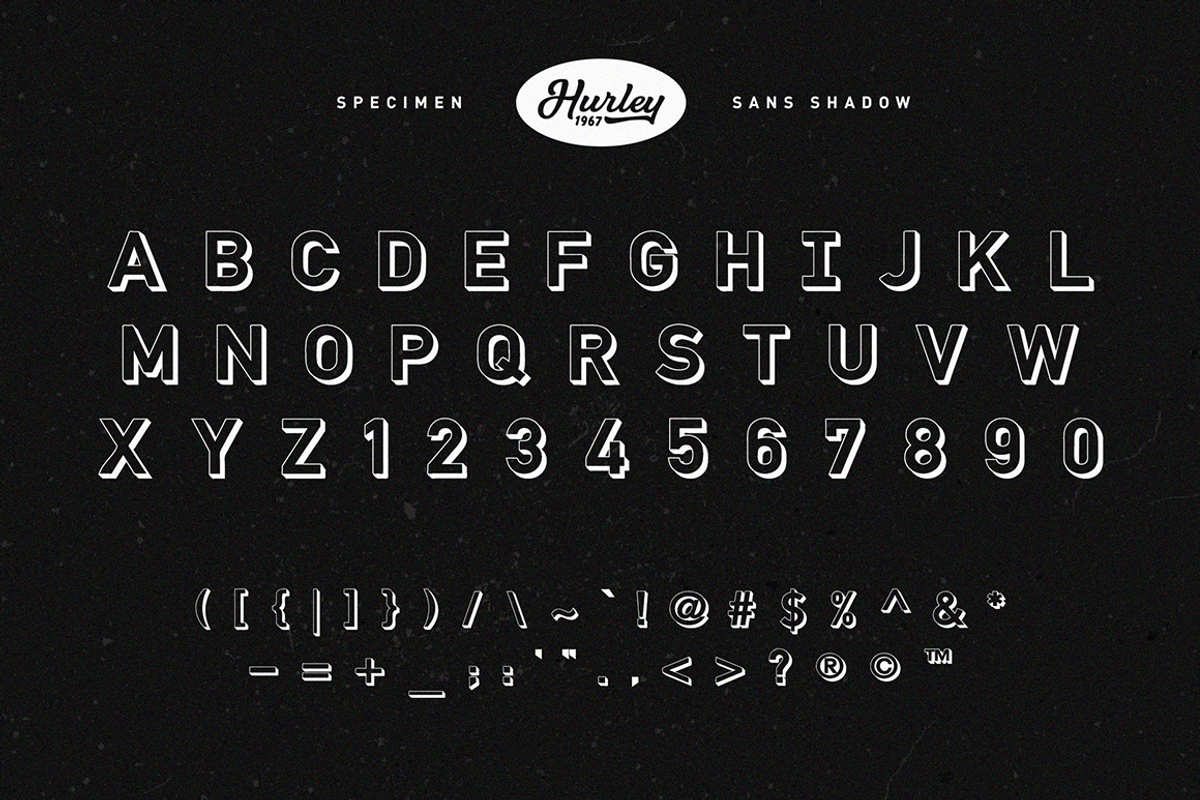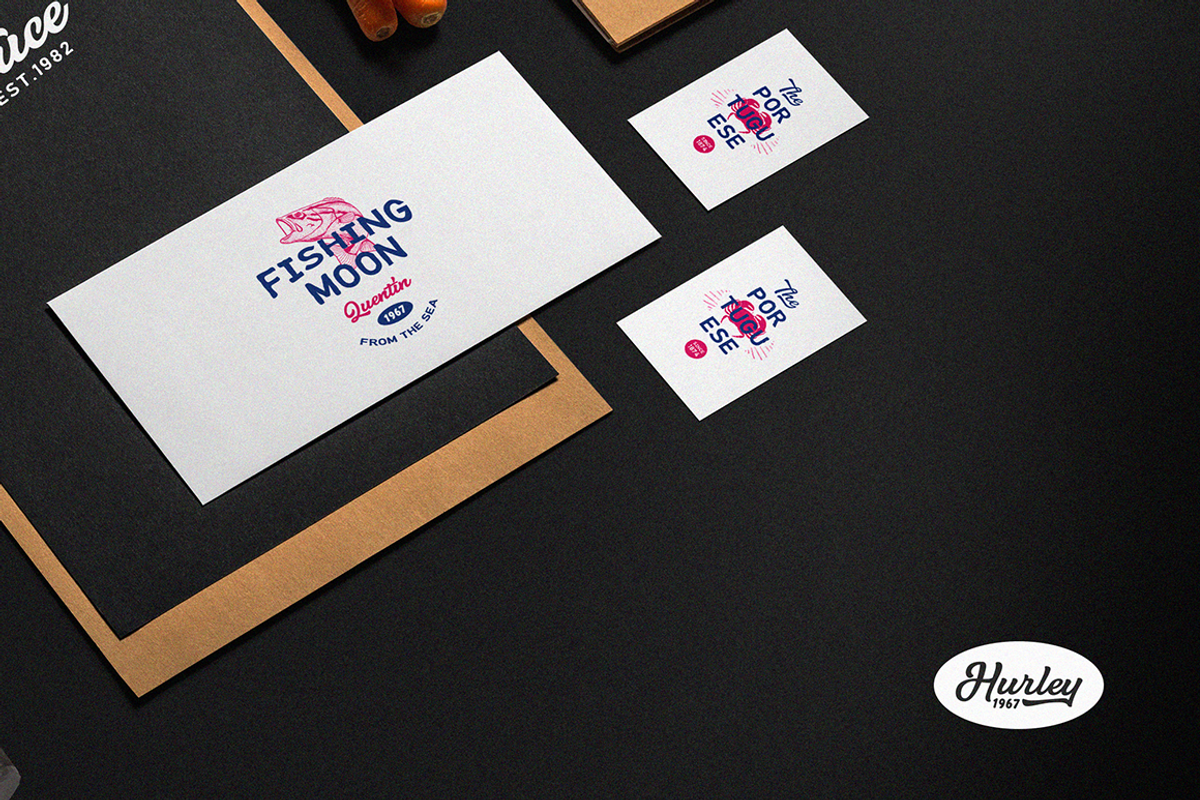
Hurley 1967 Family
About this font family
Hurley 1967 ia a bold script, with a clean lines and smooth curve combined with the beautiful features! Simply amazing fonts comes with the 7 styles. Hurley 1967 have a bunch of styles as a families plus a premade logo designed using the fonts.
Hurley 1967 families:
- Hurley 1967 Script Reg
- Hurley 1967 Script Reg Alt
- Hurley 1967 Script Bold Reg
- Hurley 1967 Script Bold Alt
- Hurley 1967 Sans
- Hurley 1967 Sans Rough
- Hurley 1967 3D
It includes opentype features - stylistic alternates and a comprehensive set of natural looking Ligatures to add to the realistic nature of the typeface.